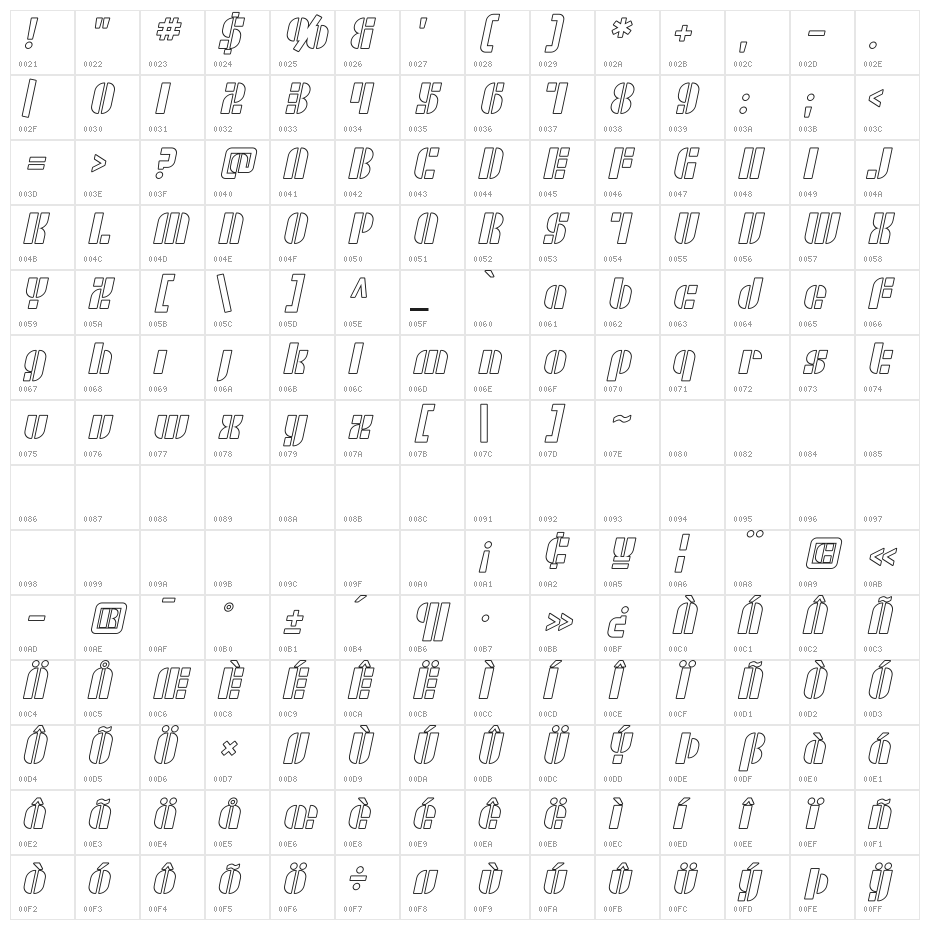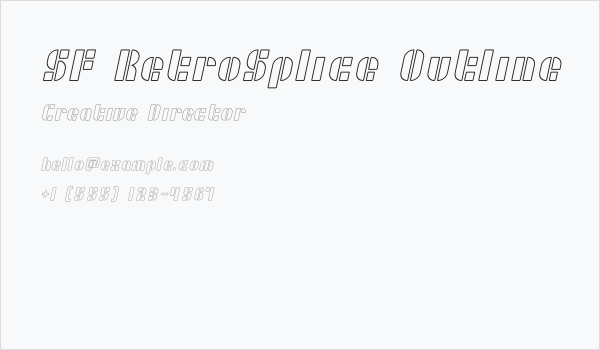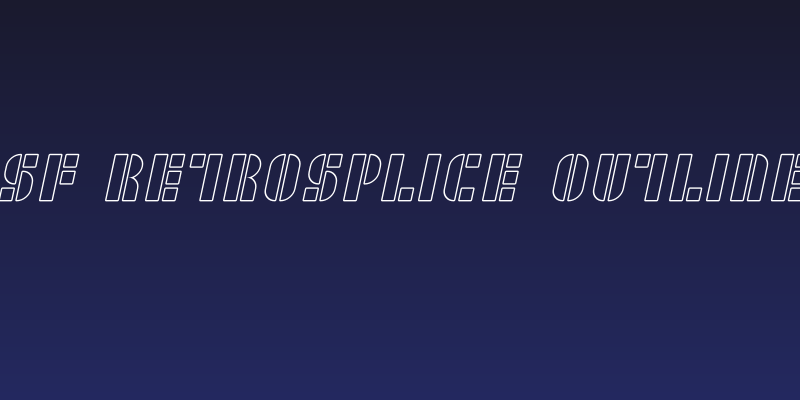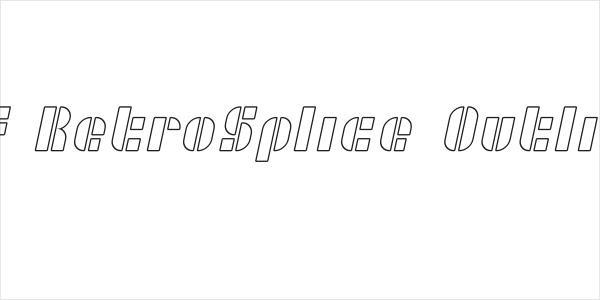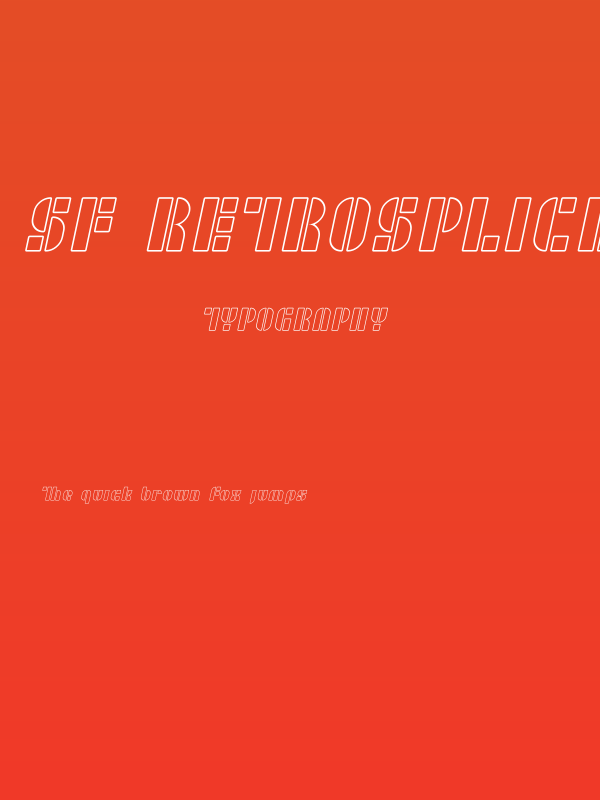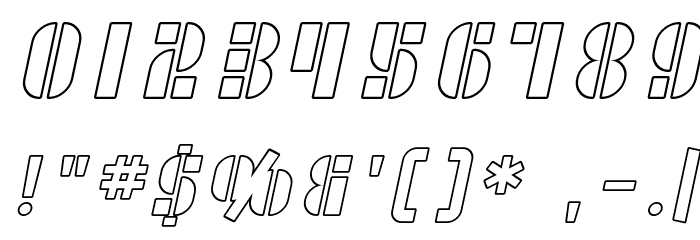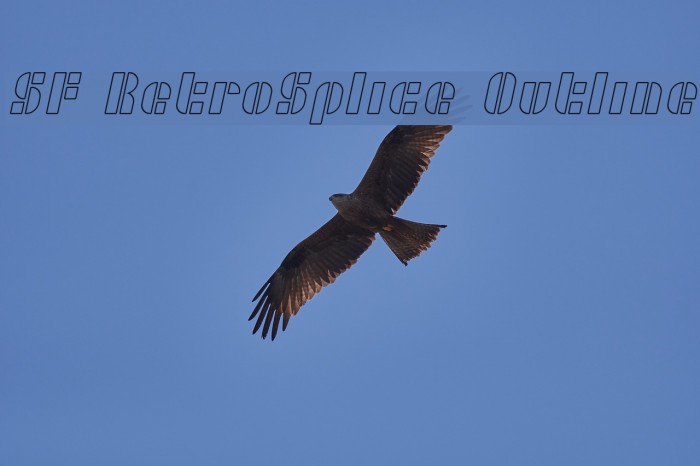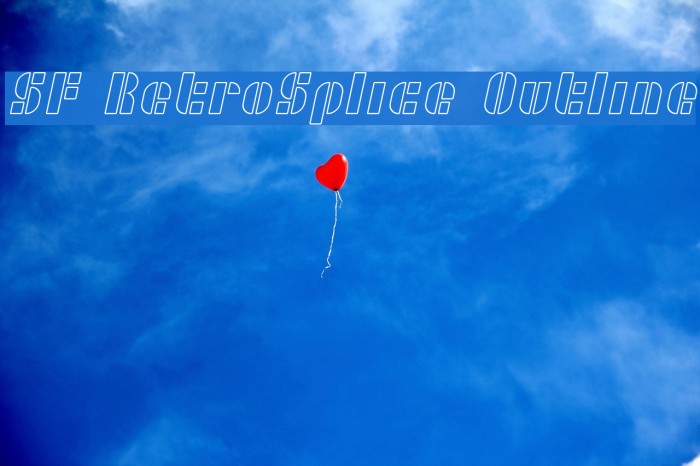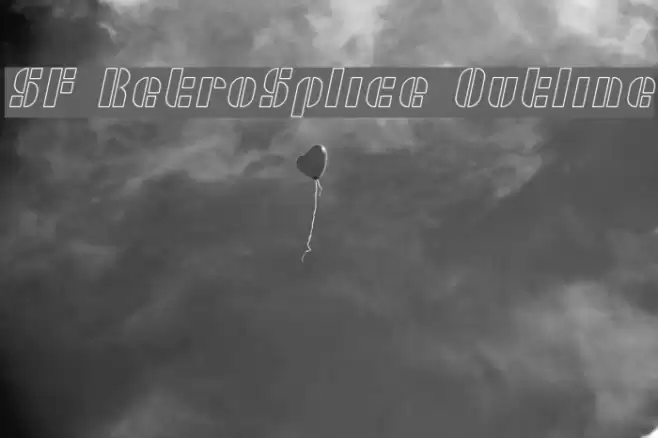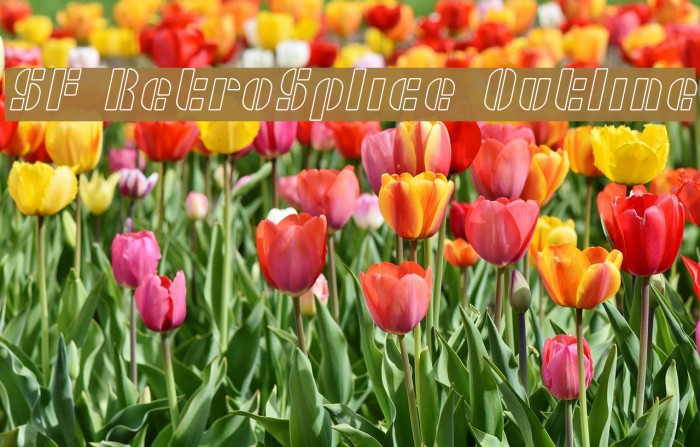
SF RetroSplice Outline Font
SF RetroSplice Outline Description
This font features a unique, retro-inspired outline style with a geometric and angular design. Each character is crafted with precision, showcasing a blend of straight lines and curves that create a dynamic and engaging visual effect. The uppercase and lowercase letters maintain a consistent height, while the numbers and special characters complement the overall aesthetic. The font's outline nature gives it a light and airy feel, making it suitable for designs that require a touch of nostalgia and modernity. Its distinct style makes it stand out, perfect for creative projects that aim to capture attention.
| Overall Style | Retro, Modern |
| Proposed Projects | Ideal for vintage-themed posters, retro branding, creative logos, and eye-catching headlines. |